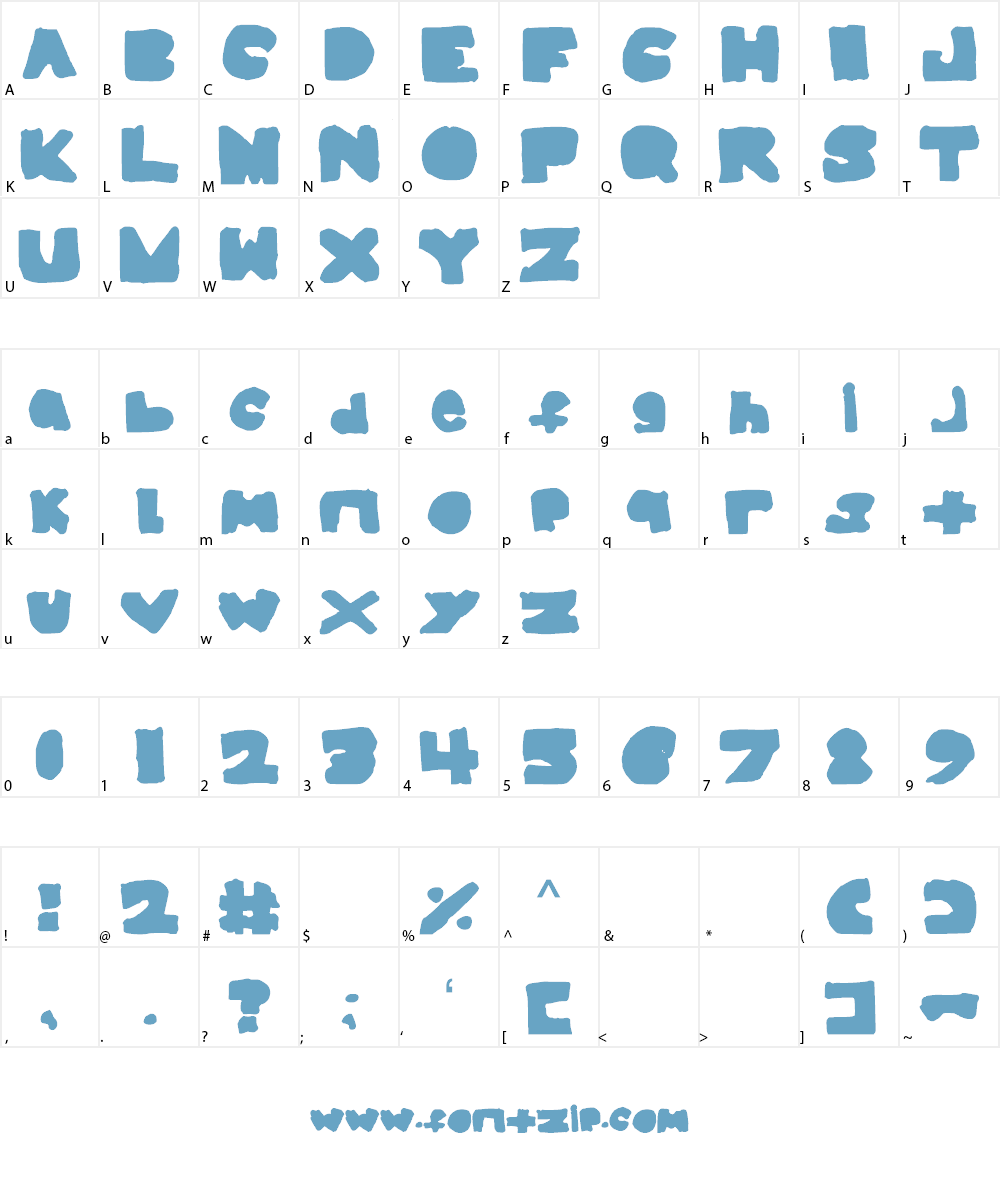
This is my second font, and I'm pretty proud of it. I've always loved all capital fonts, so it inspired me to make this, which is bold and noticeable, which I love. Hope you like it!